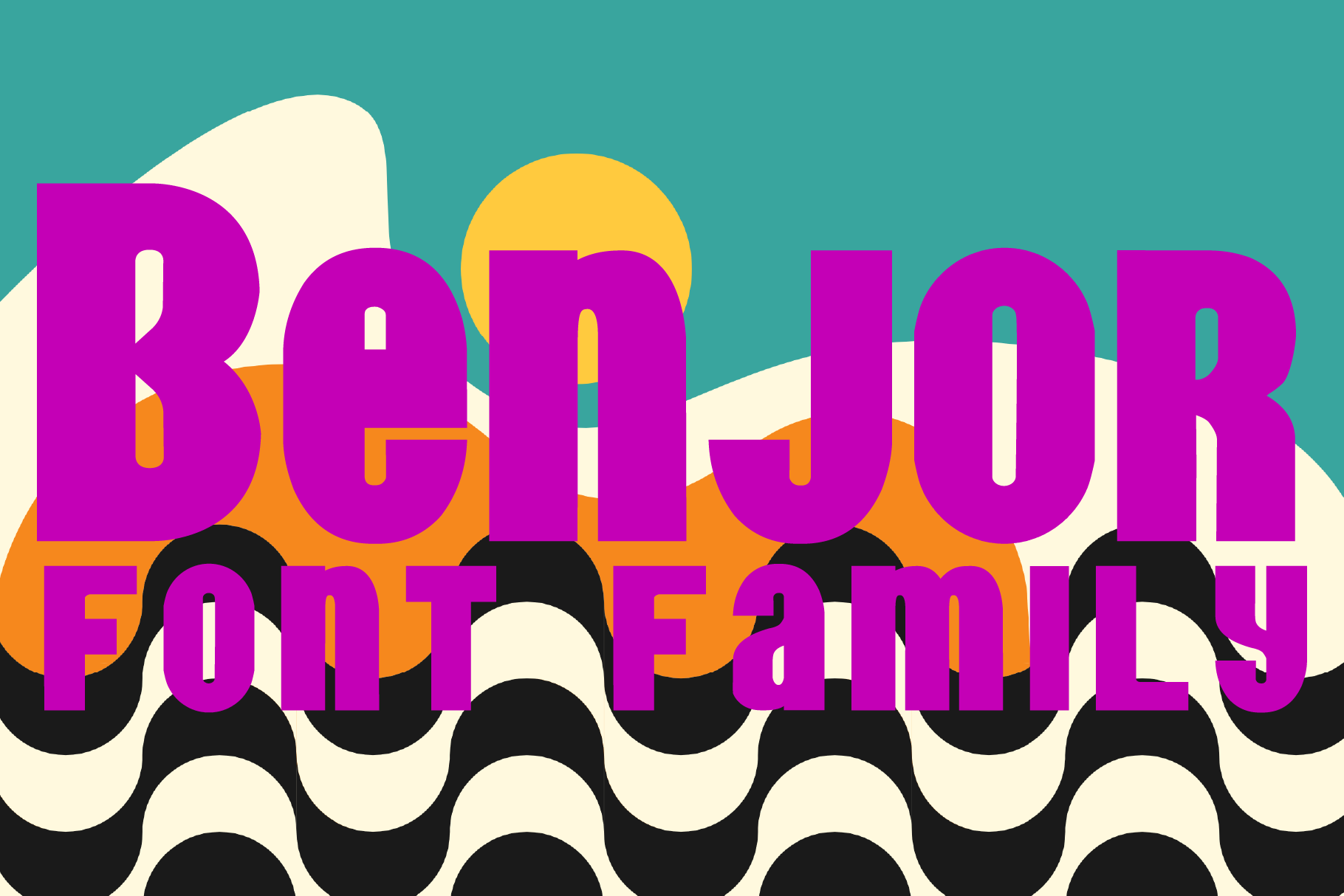
Benjor Font Family
Named in honor of the great bossa nova artist, Benjor is a fat display meant for headlines, attention-grabbing displays and even Brazillian record covers! Striking and eye pleasing, it's simply que bom!